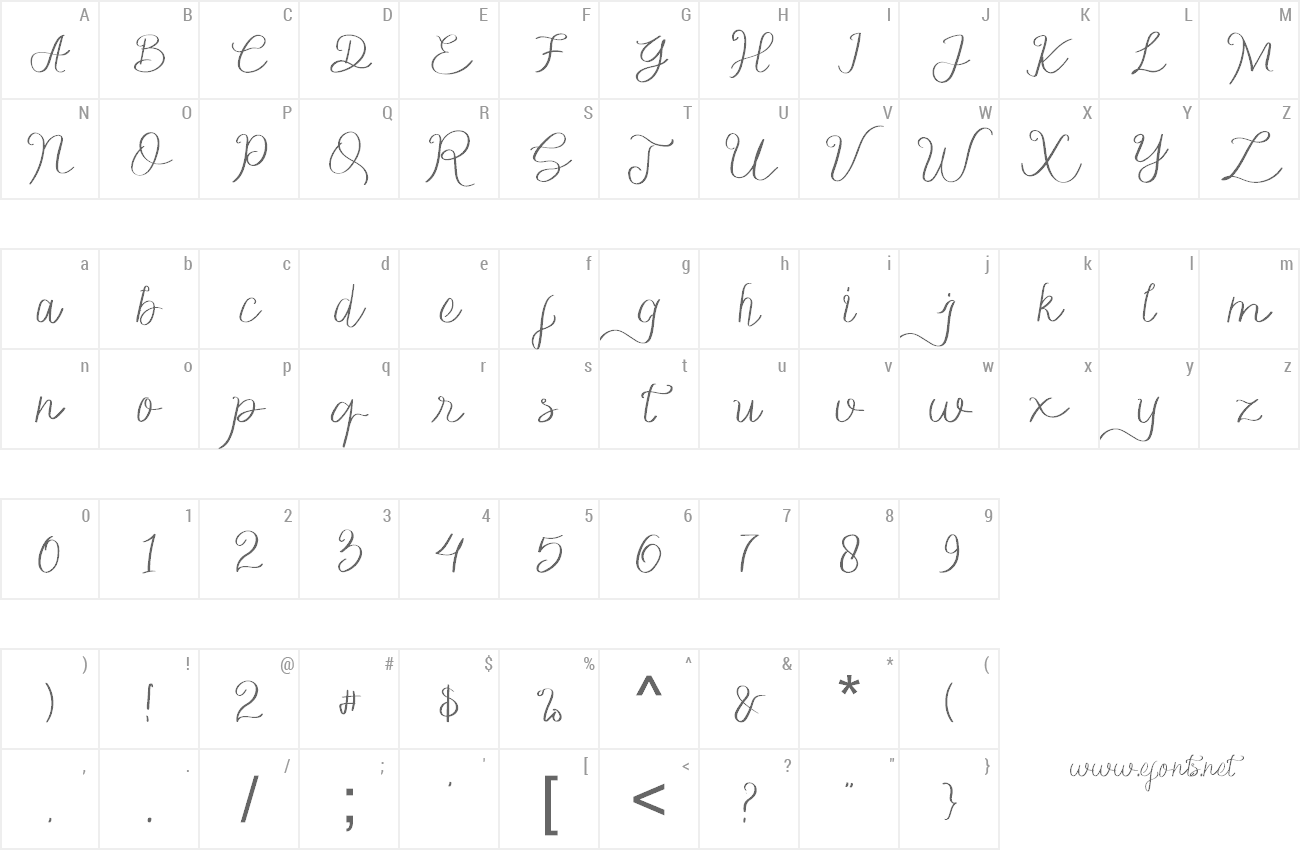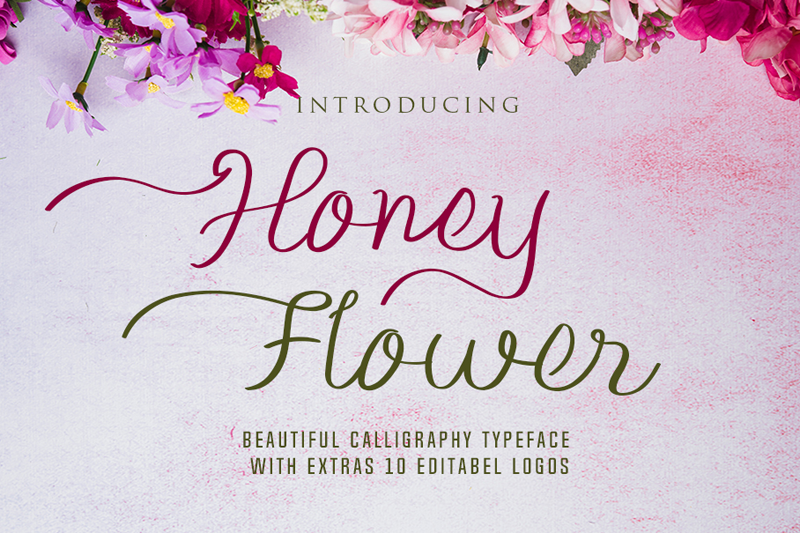
Preview and download Honey Flower Font. Created by Artspace Design in Script Handwritten styles with Free for personal use license.
| Font name: | Honey Flower |
| Author: | Artspace Design |
| Note by Artspace Design | |
| The Shuttterland is a beautiful hand-illustrated typeface. It has a playful and elegant style and includes amazing swashes to give your design a natural feel. |